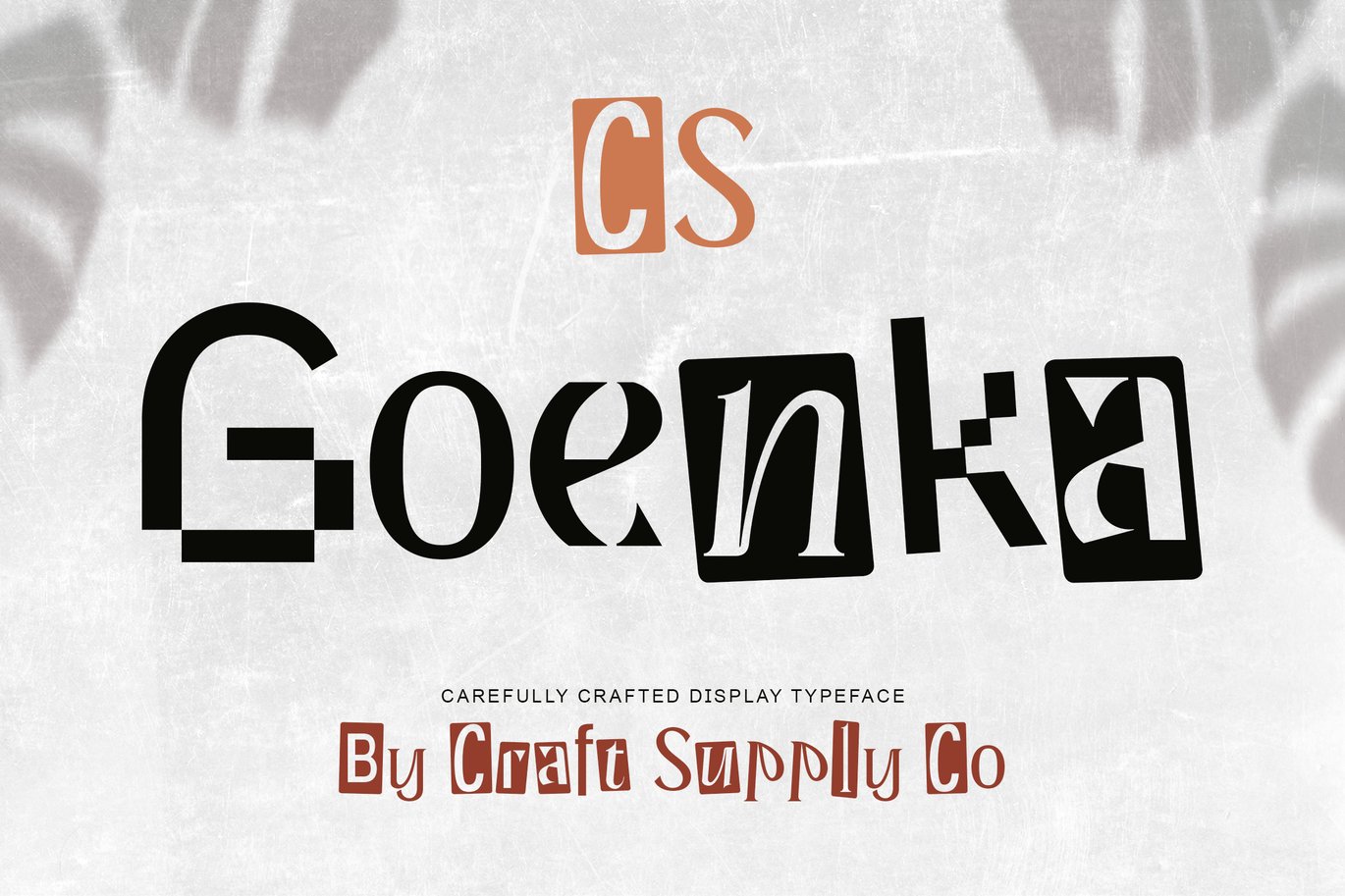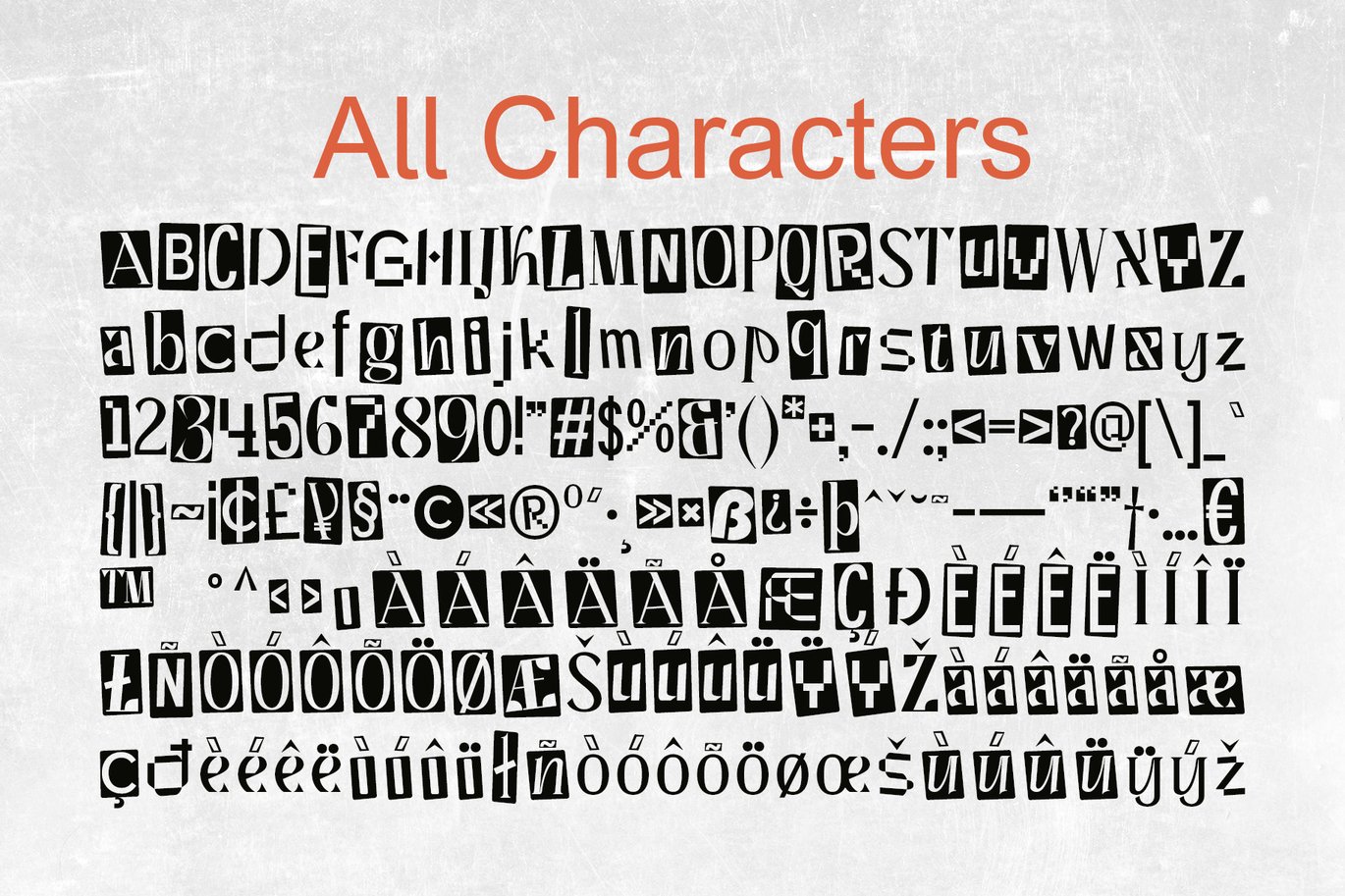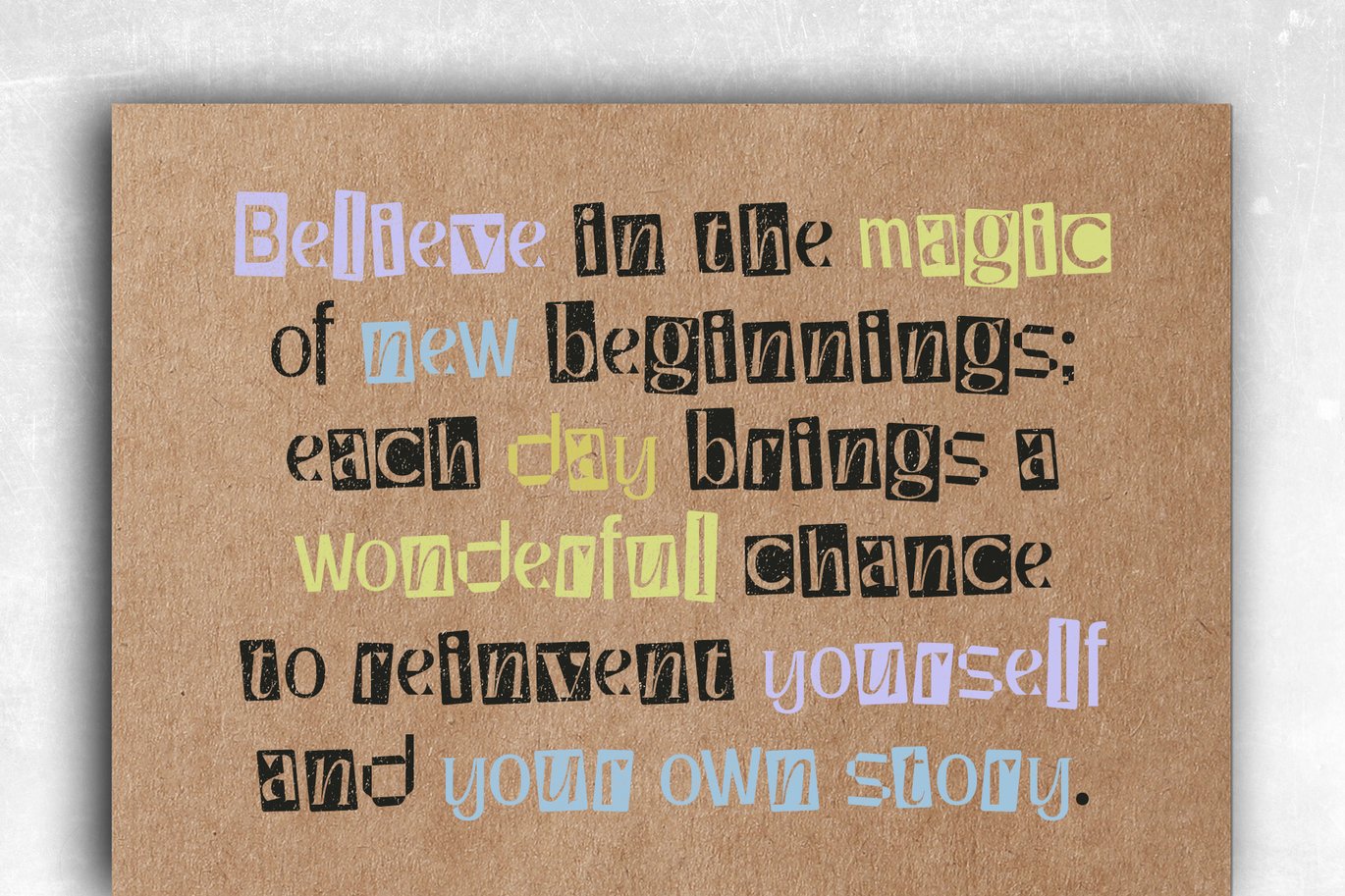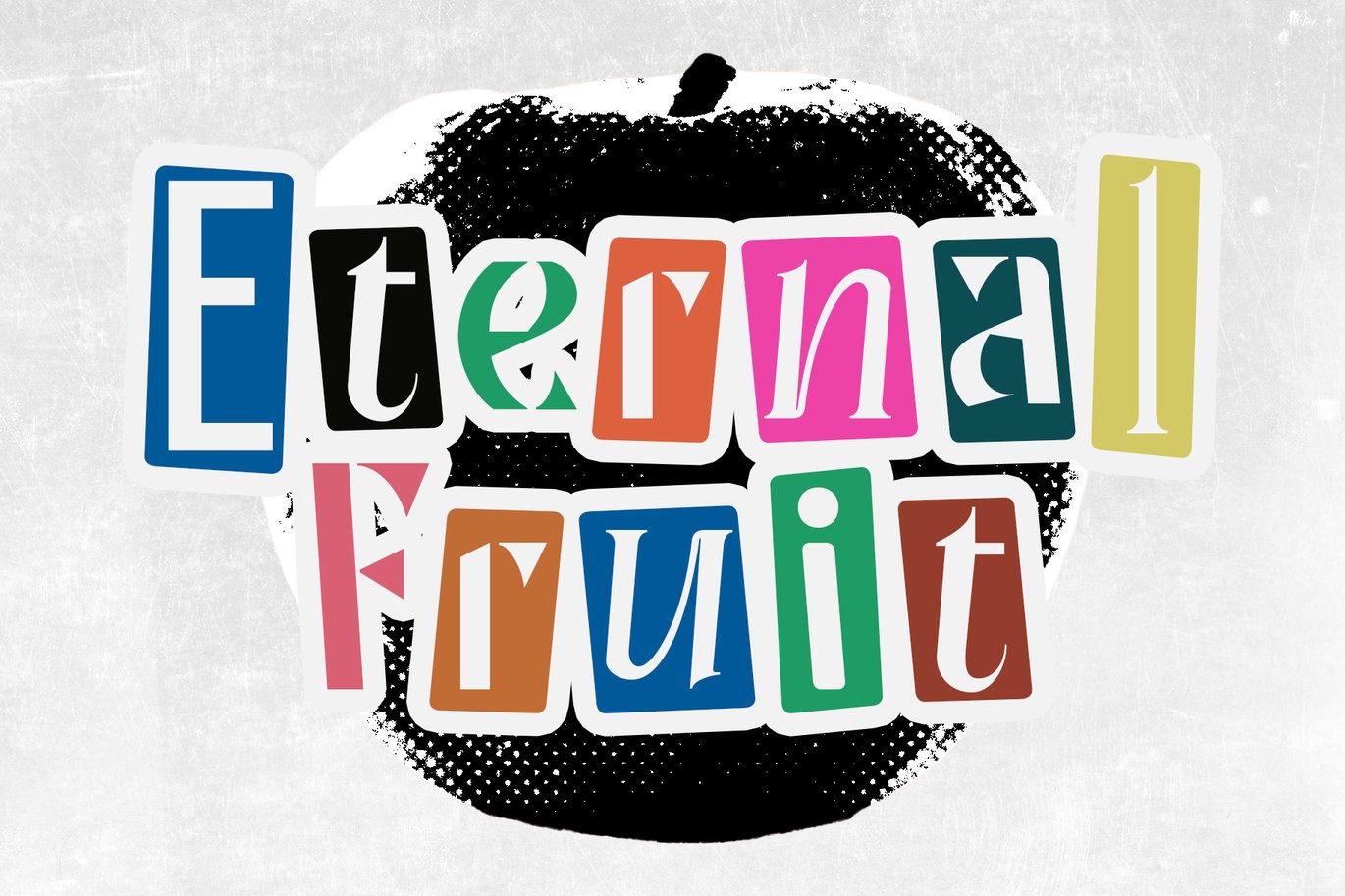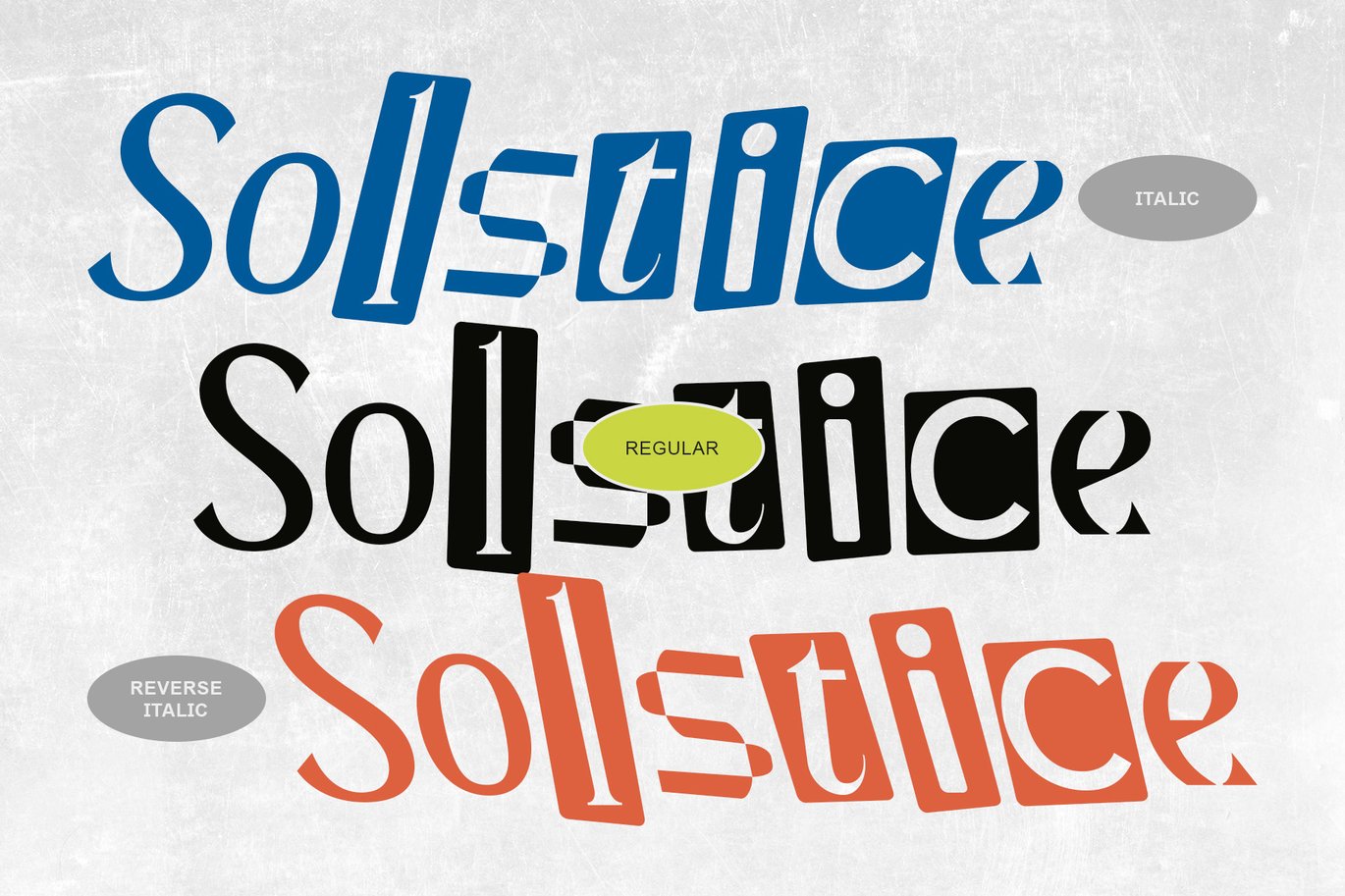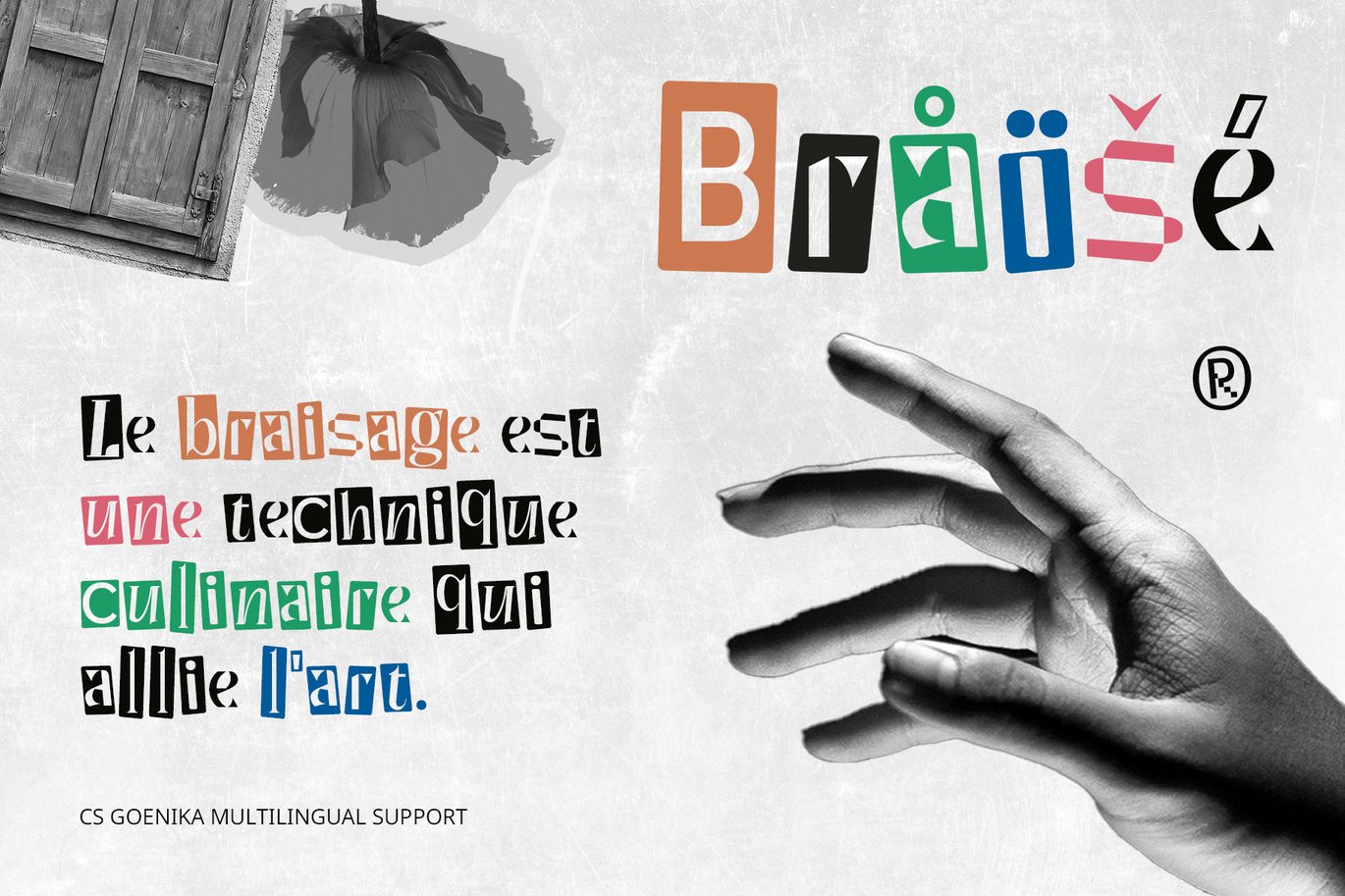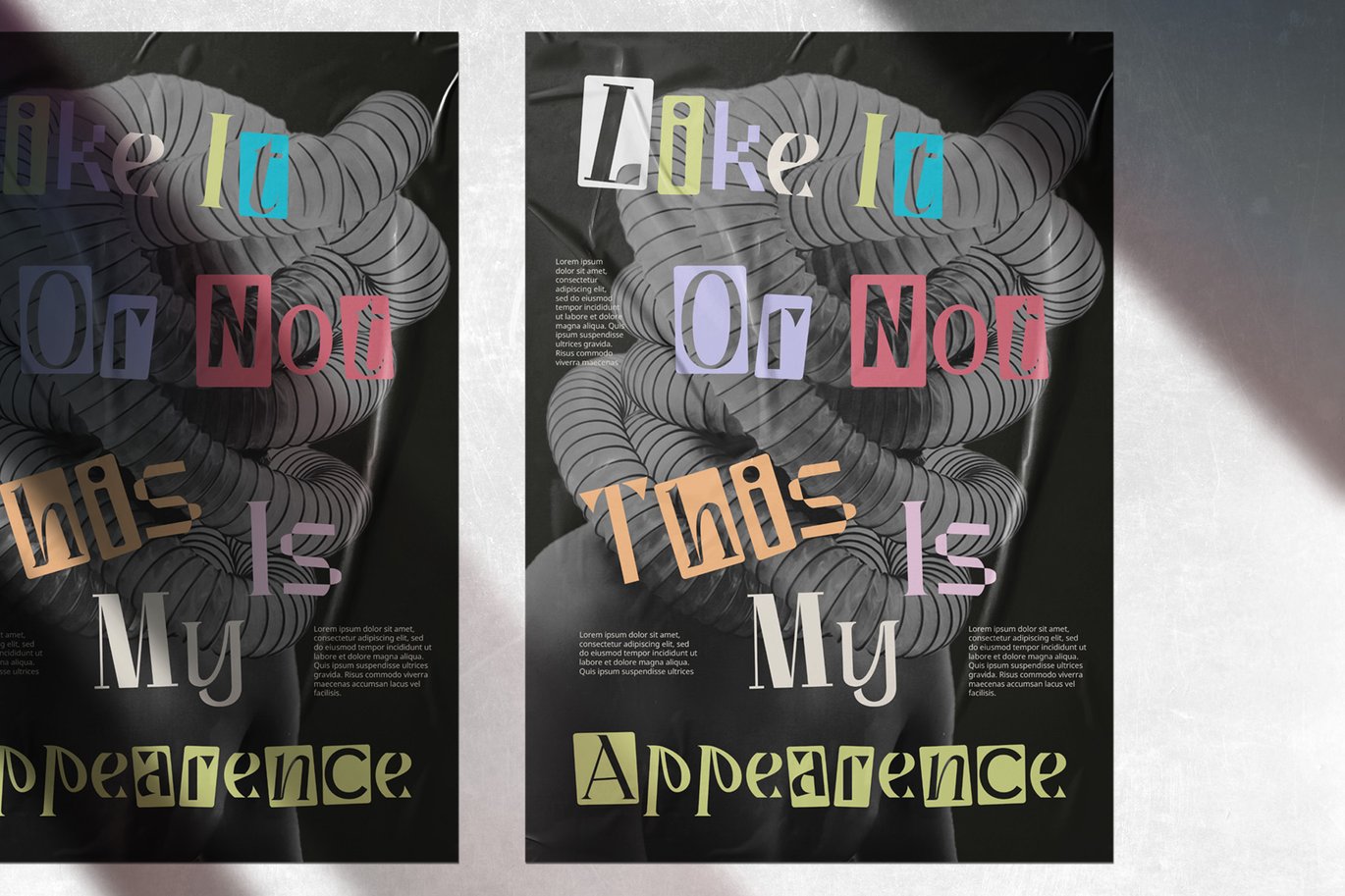
Goenka – Collage Font
CS Goenka Font: The Art of Collage Typography
Dynamic Display Font
CS Goenka is a captivating display font that embodies the spirit of artistic expression through its innovative collage style. This unique typeface masterfully blends various styles, sizes, and letter types, resulting in a diverse and visually stimulating appearance that commands attention. Each character reflects a bold fusion of color and shape, creating a striking visual experience.
Irregular Yet Harmonious Design
The irregular design of CS Goenka introduces dynamic and playful elements that elevate any project. Its eclectic combination of letters creates an unconventional look, making it perfect for designs that aim to break free from traditional typography norms. This font encapsulates creativity and spontaneity, inviting viewers to engage with its vibrant and spirited character.
Ideal for Artistic Expression
CS Goenka shines in projects that prioritize artistic flair and individuality. Whether used in posters, branding, album covers, or visual media, this display font enhances the overall aesthetic by adding a layer of depth and intrigue. Its eye-catching qualities make it an excellent choice for creative campaigns and events that seek to convey a sense of fun and originality.